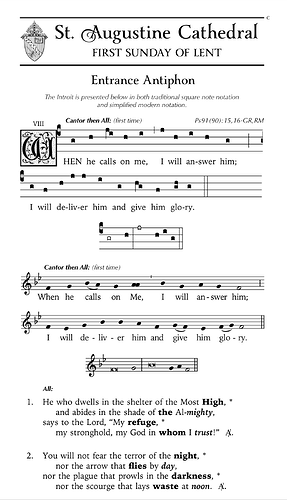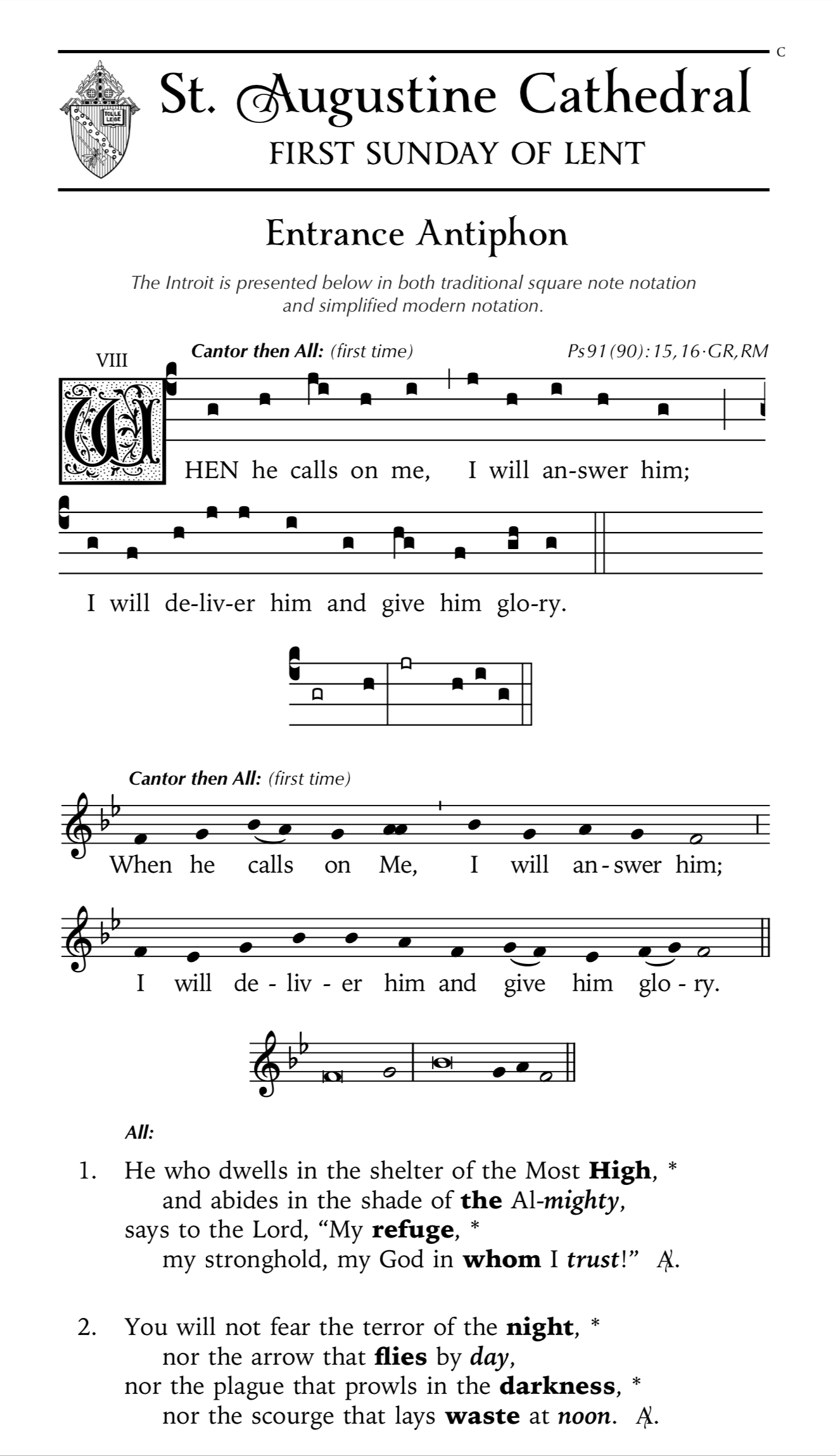
Someone asked me to write out a Hallelujah for Easter Sunday. Is there a better font in Dorico than using its normal noteheads without stems?
Example:
I am thinking of faking it with a playing technique built from this glyph:
Check out a plainchant font I made for this purpose: Cantorum - Notation Central
One suggestion: for the double puncti, use the interval popover to adding the second note manually, and having weird spacing. Then they touch just like normal neums. It looks better. Just do shift-I, 1.
Here’s a recent example from a worship aid I did for Lent I, where I offered the antiphon in both square notes and transcribed. You can see the double note thing:
Brilliant idea with Shift-I 1.
Also comparing both your versions is something like
plaintchant for dummies.
Very good help for a start.
I did some experimenting a couple of years ago with notehead sets, then hiding the stem and adjusting some note spacing. Not sure, if it is useful, certainly not as beautiful as the other examples. And obviously playback doesnt work.